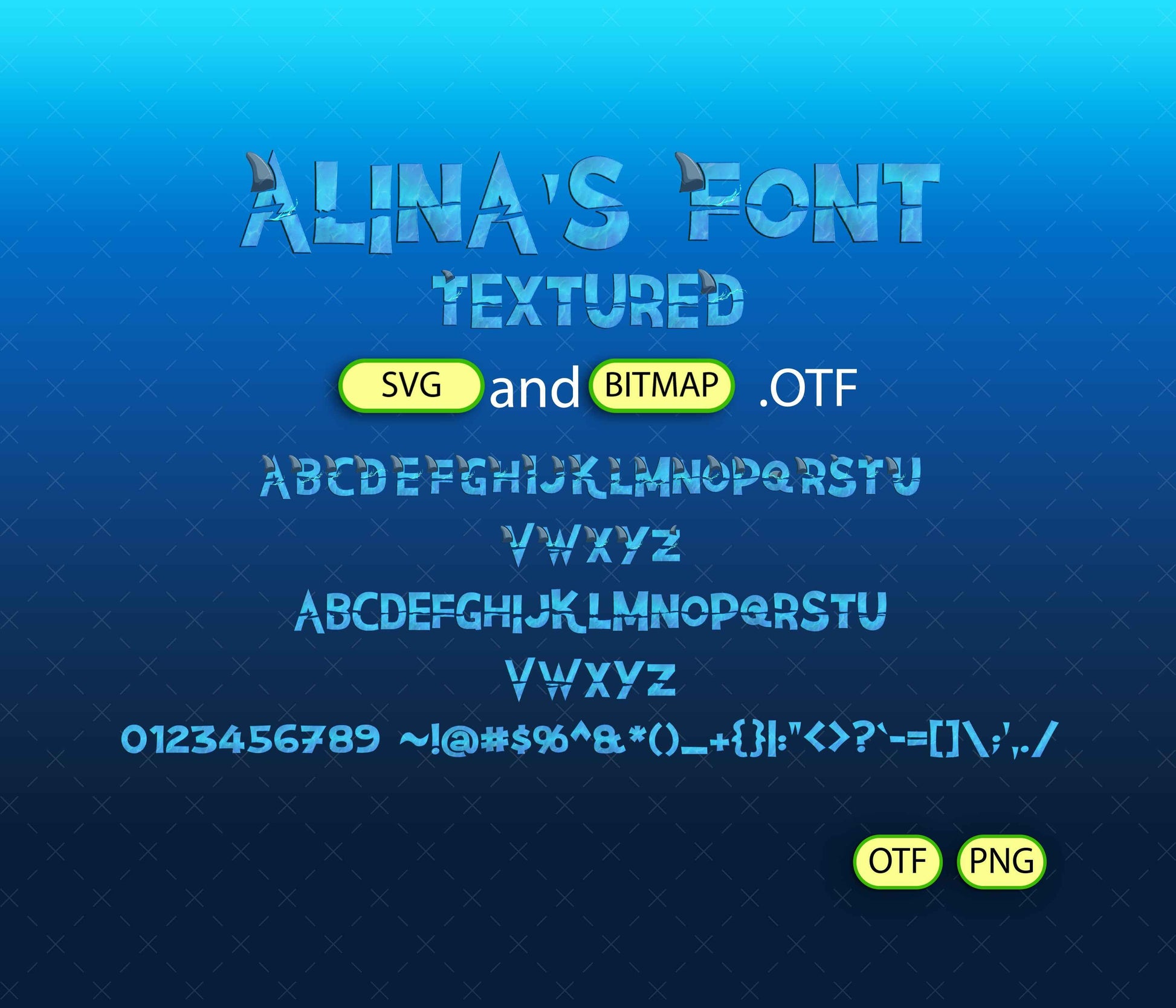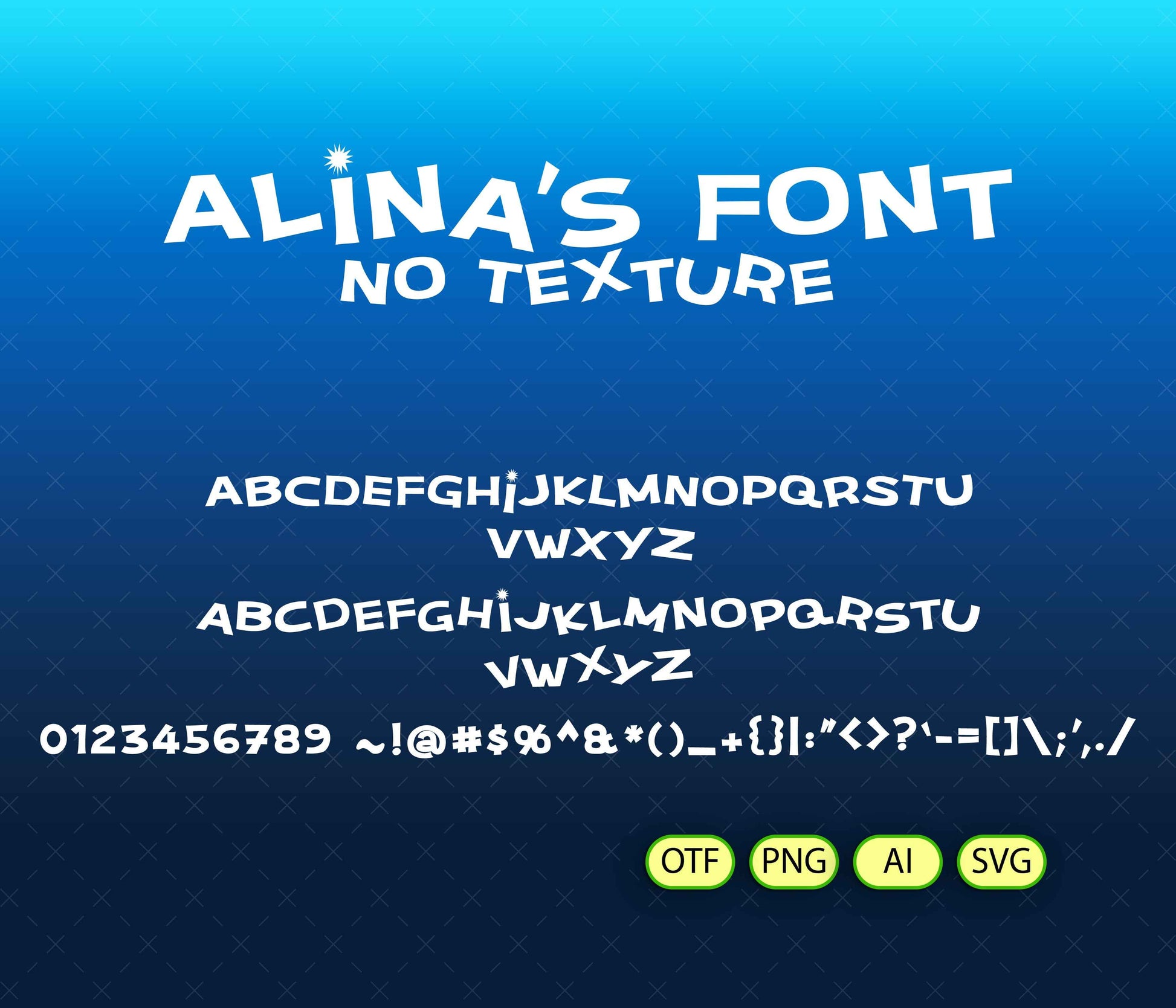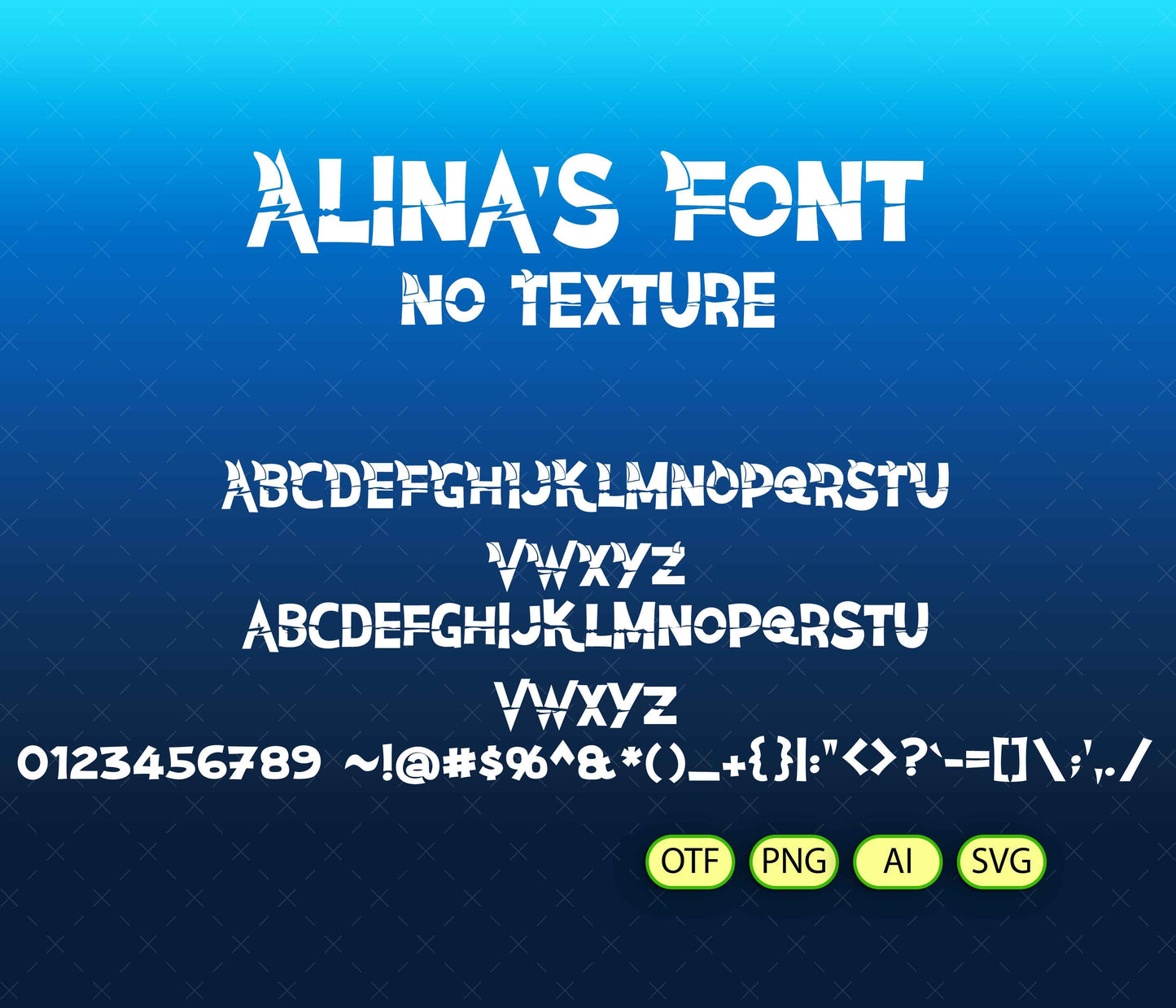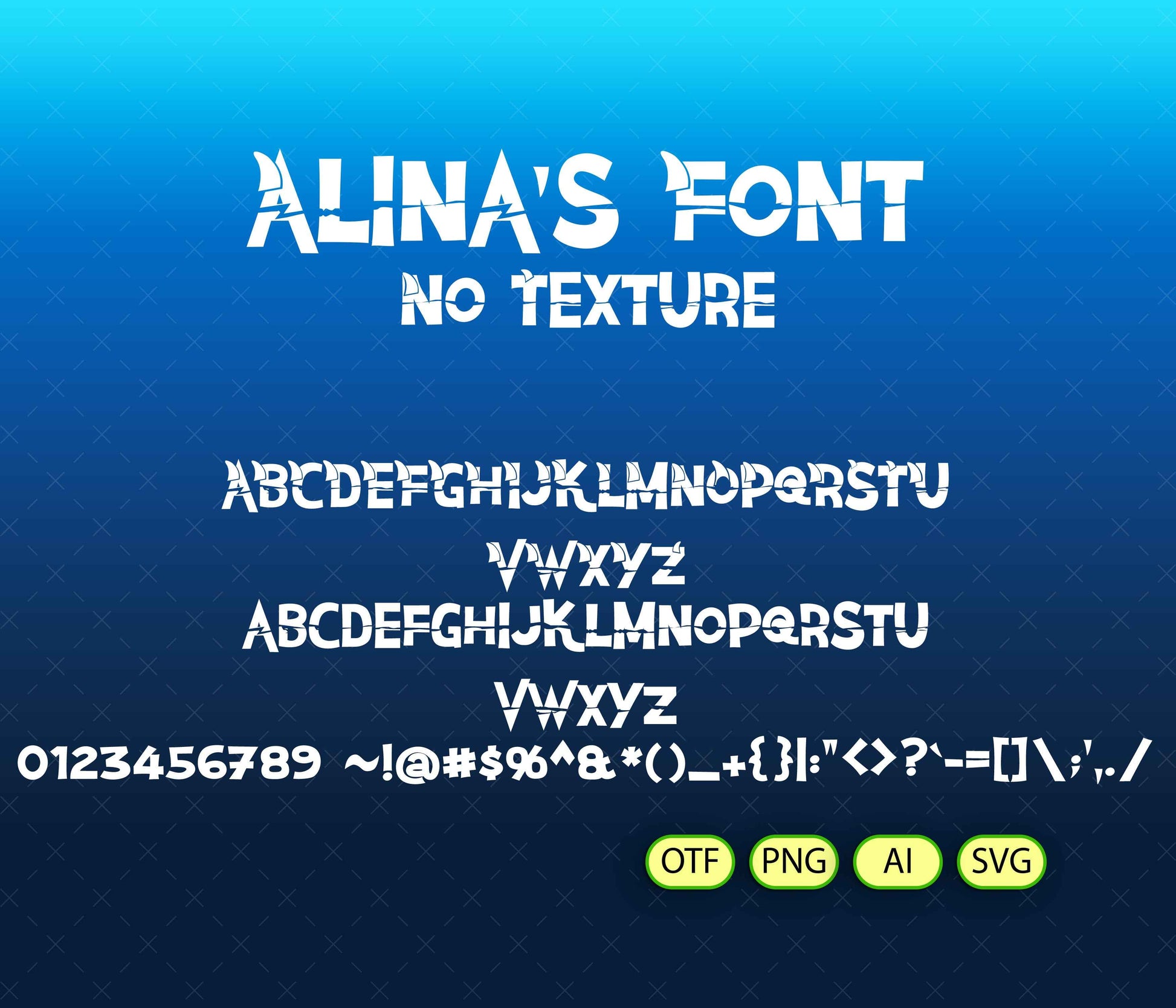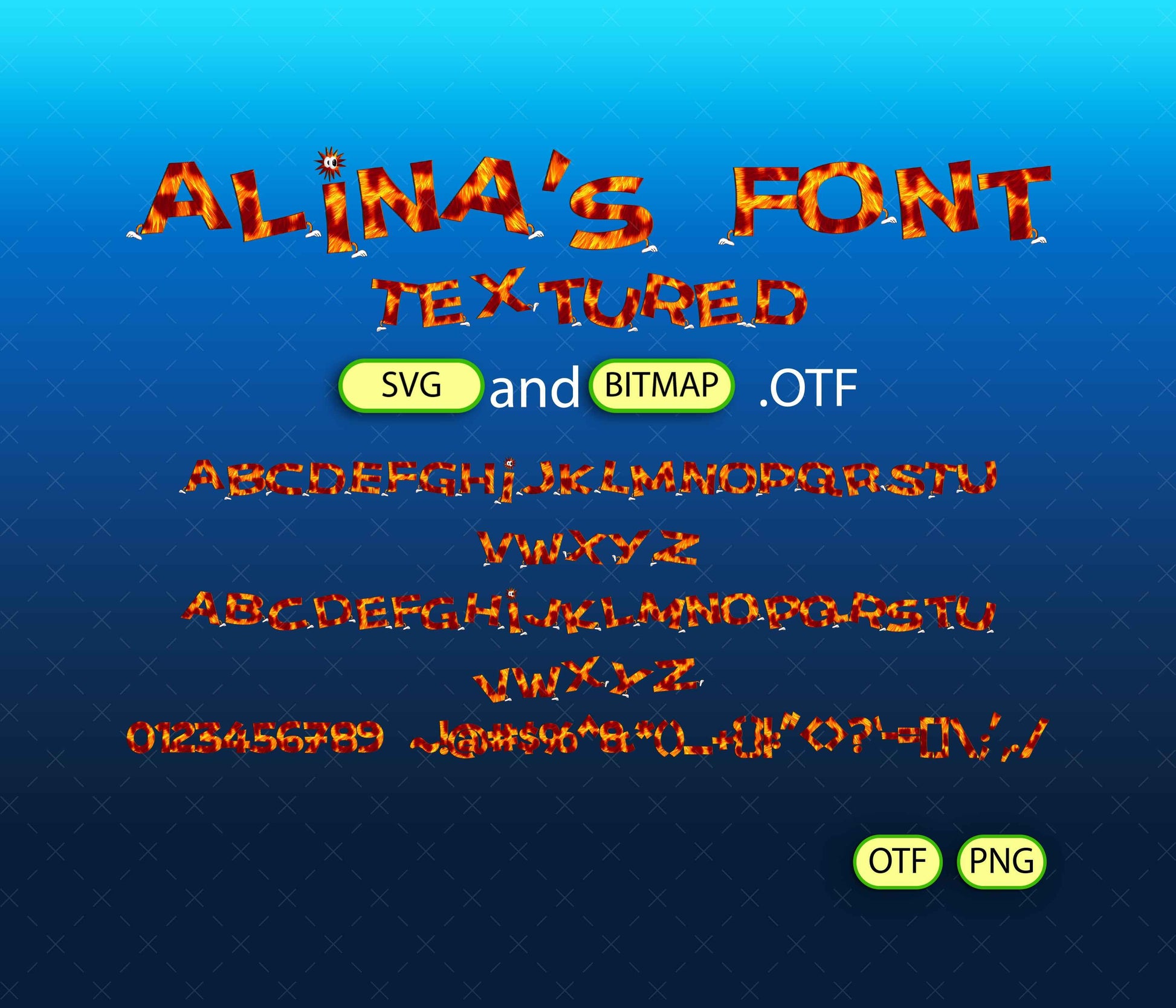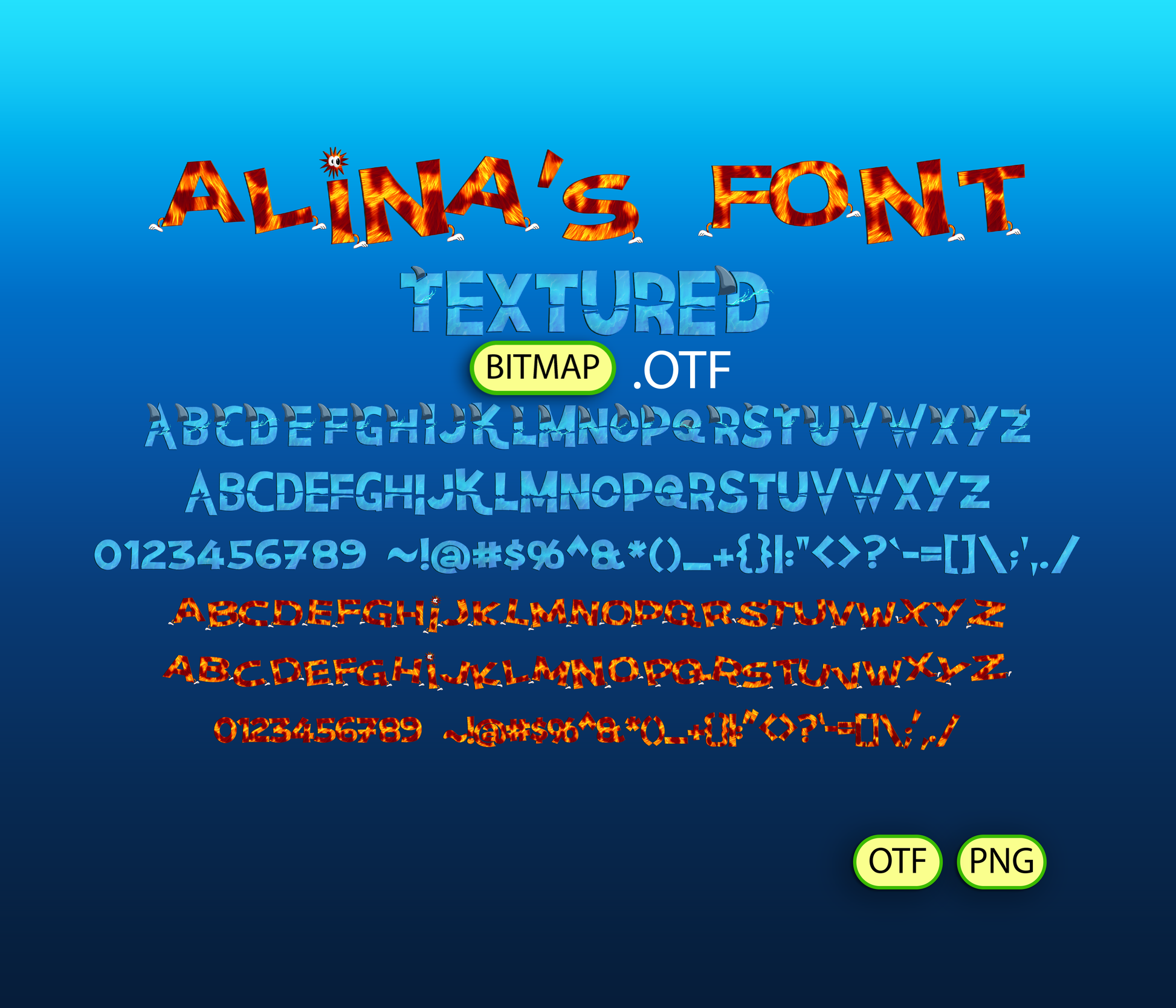
Island Mischief Font Textured Bundle
Island Mischief Textured Font: Dive into the Fun
Immerse yourself in the zany world of Island Mischief with our specially designed font, capturing the hilarious and quirky essence of an animated series full of antics and fun. This font takes inspiration from the endless escapades of animated characters on their tropical island. Each character in the font embodies the playful, vibrant, and slapstick humor of the show, perfect for creating designs that evoke the fun and mischievous spirit of these unique underwater chases. Imagine a typeface that perfectly encapsulates the cartoonish, lively style of an animated series. Our font is meticulously crafted to echo the fun, energetic, and whimsical visuals. It includes an extensive character set, featuring alphabets, numbers, and special symbols, making it an ideal choice for a wide array of creative projects that seek to bring a touch of animated charm.
The Island Mischief font is versatile and customizable, ideal for various fun and engaging applications:
1. Children's Party Invitations: Perfect for creating lively invitations for themed birthday parties.
2. Cartoon and Comic Art: Enhance comic strips and cartoon art with this playful font.
3. Educational Materials: Use in classroom resources to captivate young, imaginative minds.
4. Custom Apparel: Design t-shirts and accessories that fans of the show will adore.
5. Animation and Film Projects: Suitable for titles and credits in animation or short film projects.
6. Digital Content: Stand out with engaging posts and graphics on social media.
7. Event Signage and Decor: Create vibrant banners and decorations for children's events.
8. Personalized Stationery: Develop stationery sets that are fun and appealing to kids.
9. Brand Promotions: Incorporate into branding for children's entertainment or products.
10. Creative DIY Projects: Ideal for crafting and scrapbooking with a cartoon theme.
• Textured and Non-Textured Variants: Choose between a fun textured look or a sleek, non-textured version for diverse design needs.
• Extensive Character Set: A full range of characters to cover all your design needs.
The Island Mischief-inspired font is more than just a typeface; it's an invitation to a world of underwater adventures and comedic escapades.